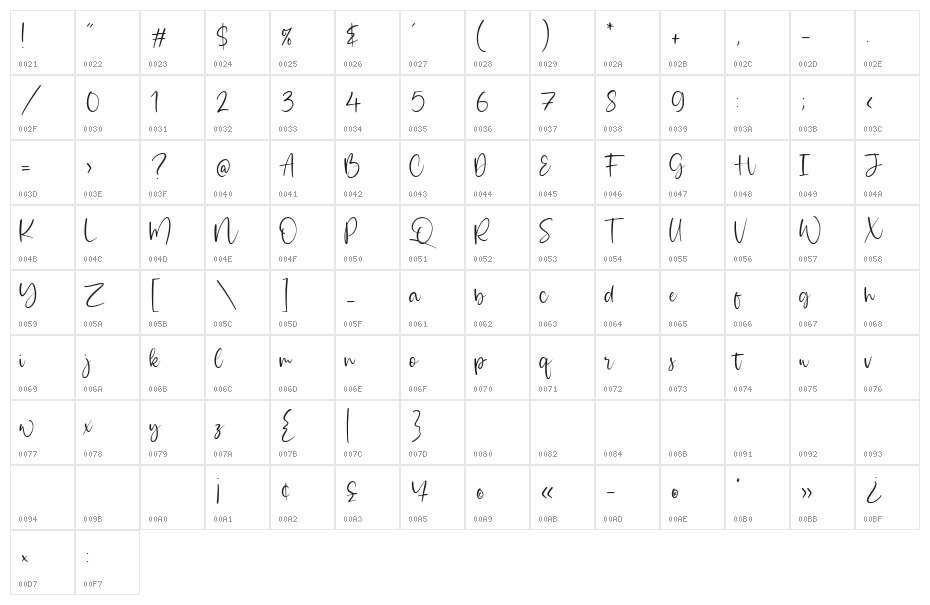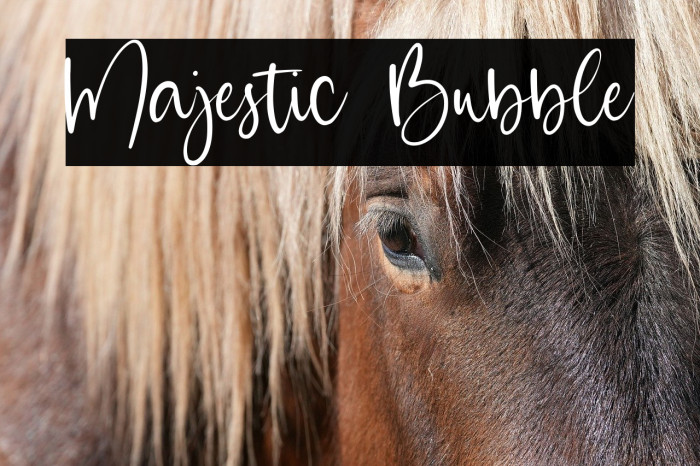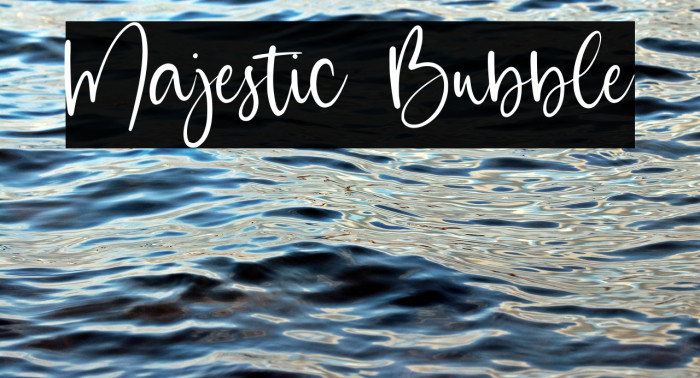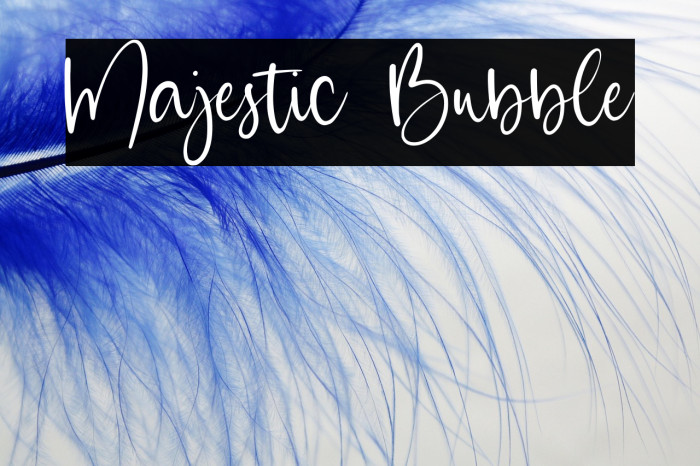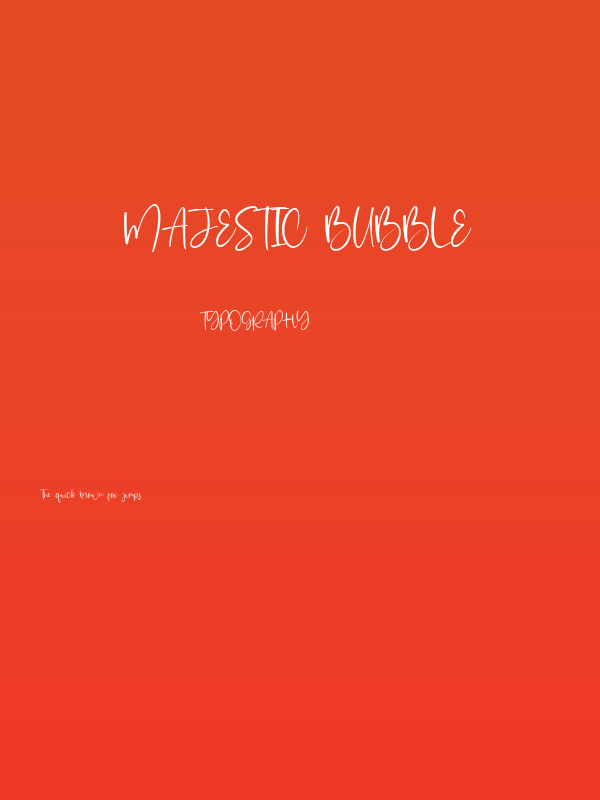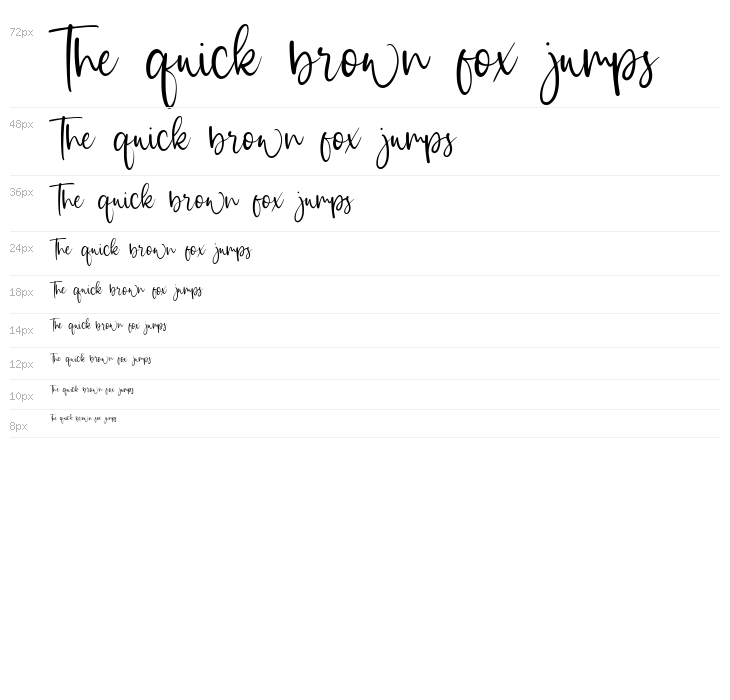
Majestic Bubble Font
Majestic Bubble Description
This font features a playful and whimsical handwritten style with a smooth, flowing script. The characters are elegantly elongated with a slight slant, giving it a dynamic and lively appearance. The strokes are consistent in thickness, providing a harmonious balance between the letters. The uppercase letters are bold and prominent, while the lowercase letters maintain a delicate and graceful form. The numerals and special characters complement the overall style, making it versatile for various design needs. Its unique charm makes it suitable for creative and artistic projects.
| Use Case | Logos, Invitations, Artistic Projects |
| Proposed Projects | Ideal for wedding invitations, greeting cards, personal branding, and artistic posters. |